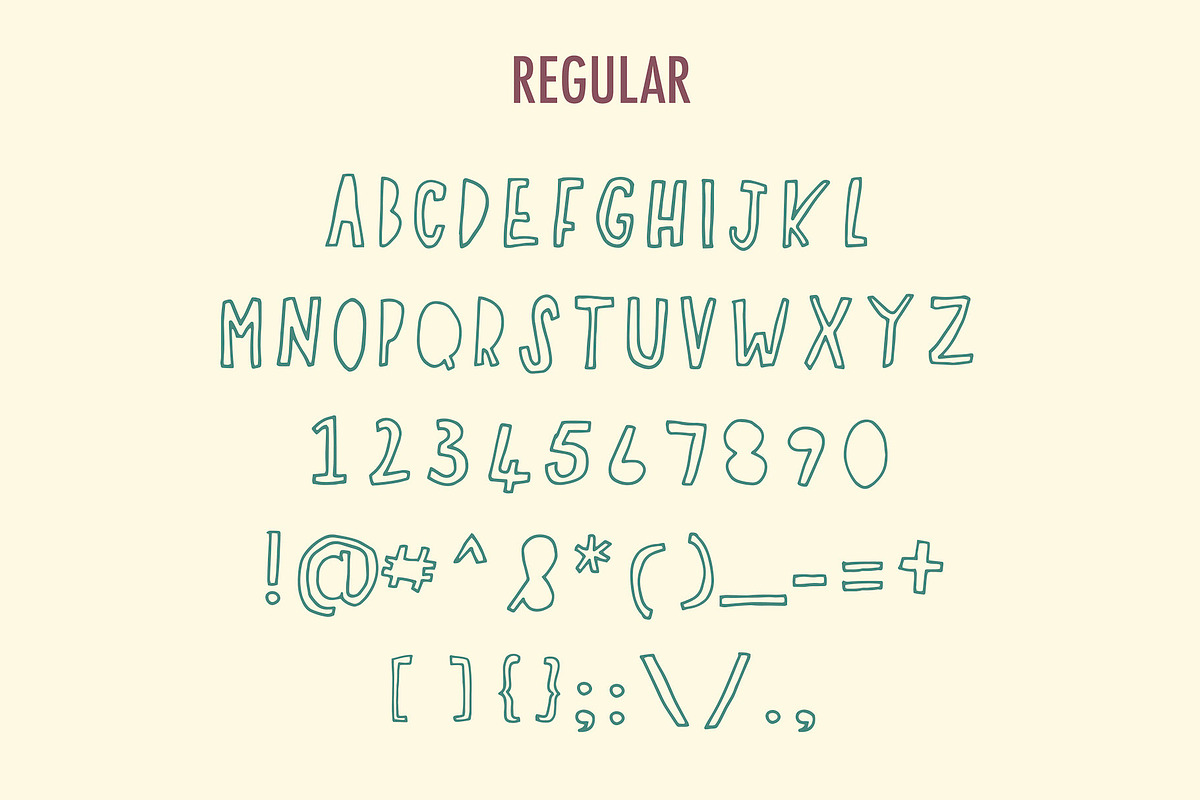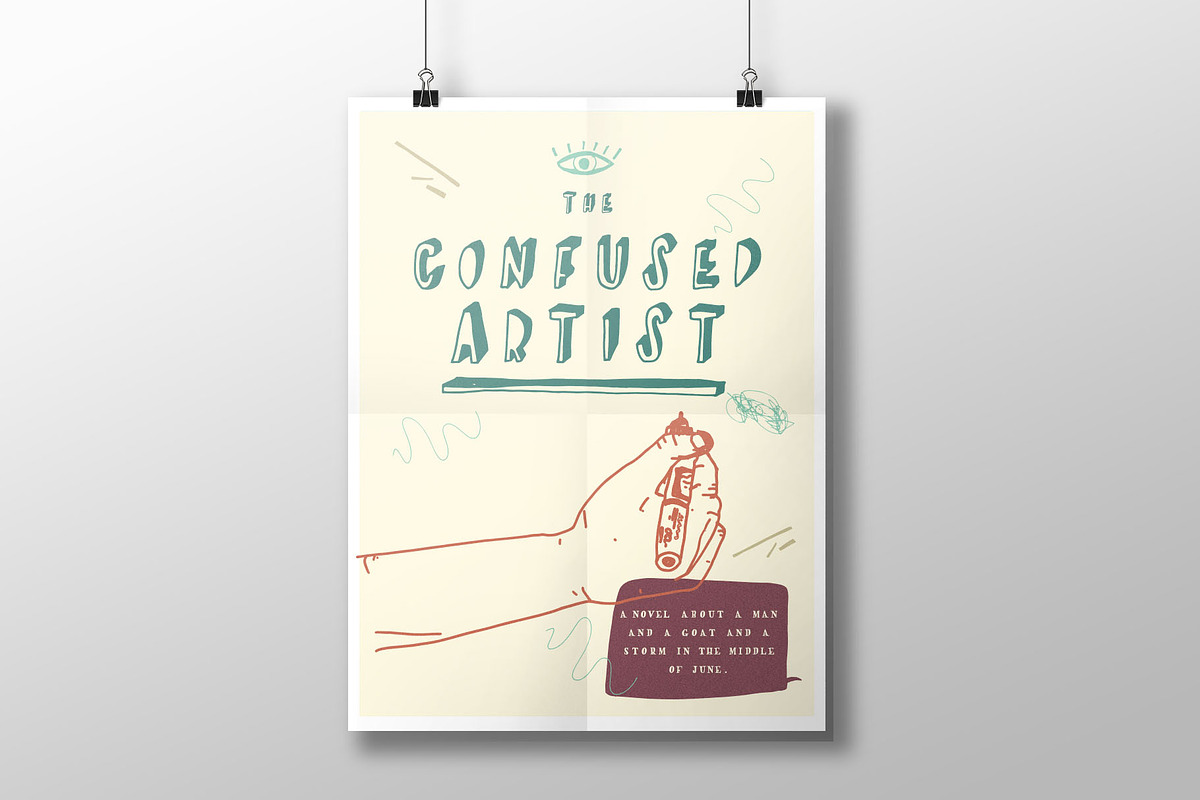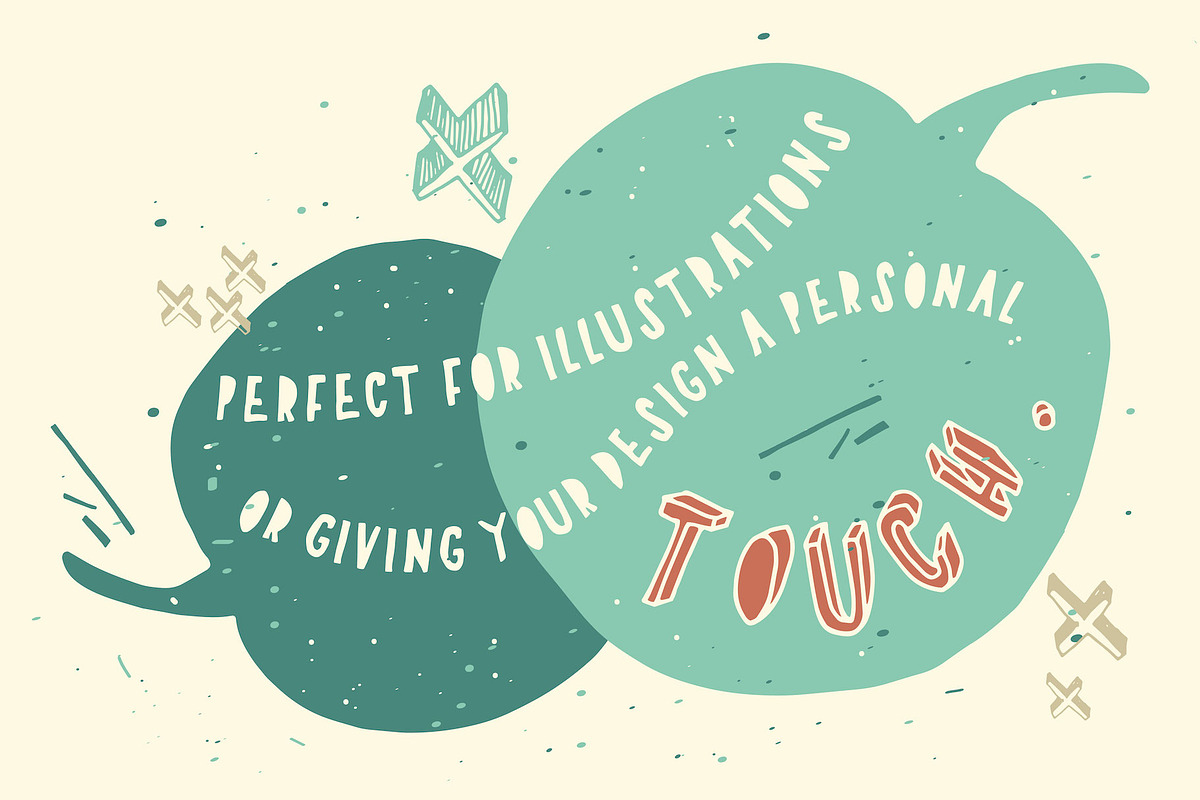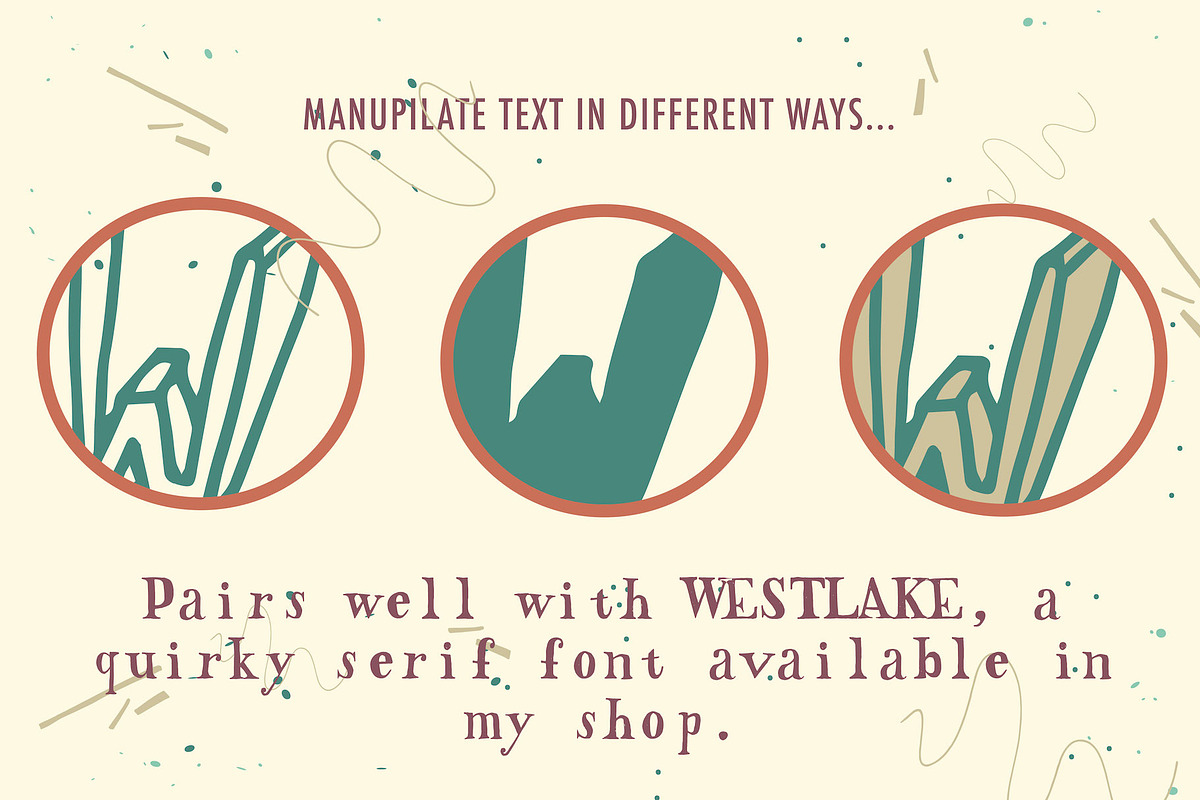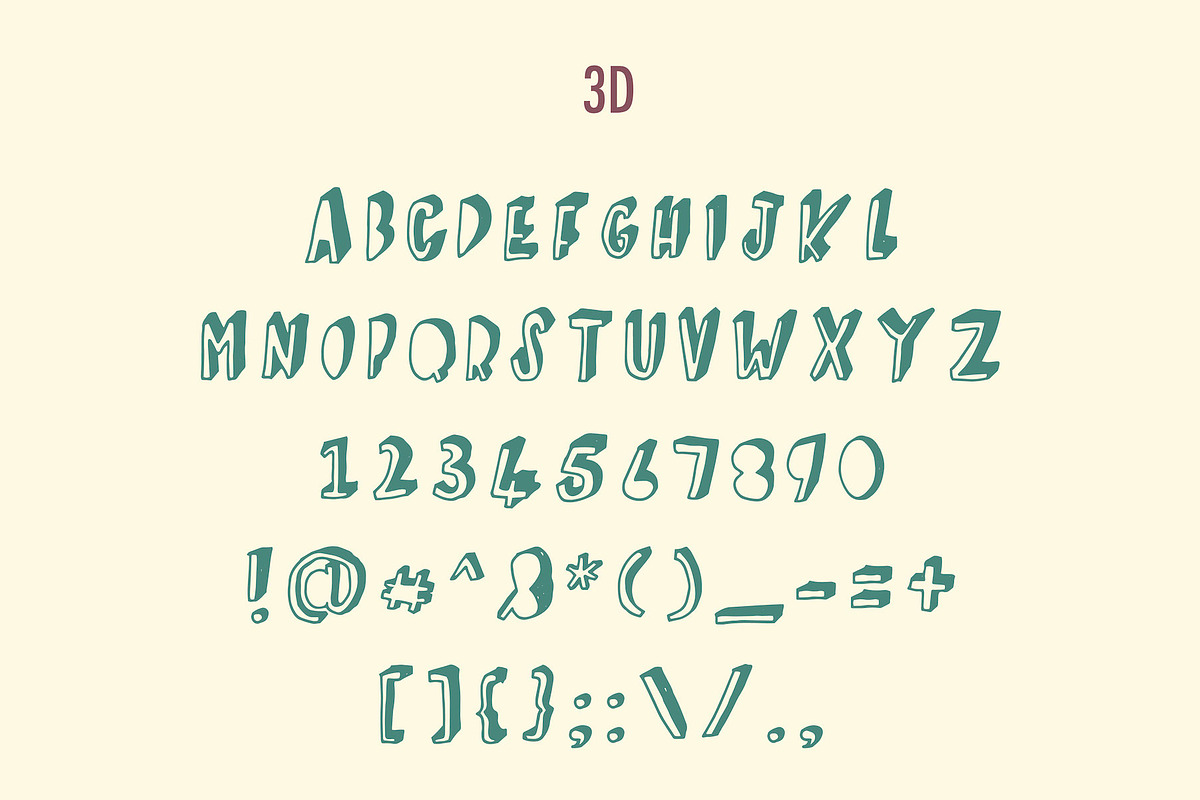
Cartagena Hand Drawn Font
This font was inspired by my recent travels in Colombia. Cartagena is a quirky, hand drawn font, perfect for Logotypes, Apparel Design, Posters, illustration projects and much more. This font is perfect for making statements and giving your brand/design the authenticity it deserves.
Note that this is an ALL CAPS font, and that your All caps function needs to be turned on to use it.